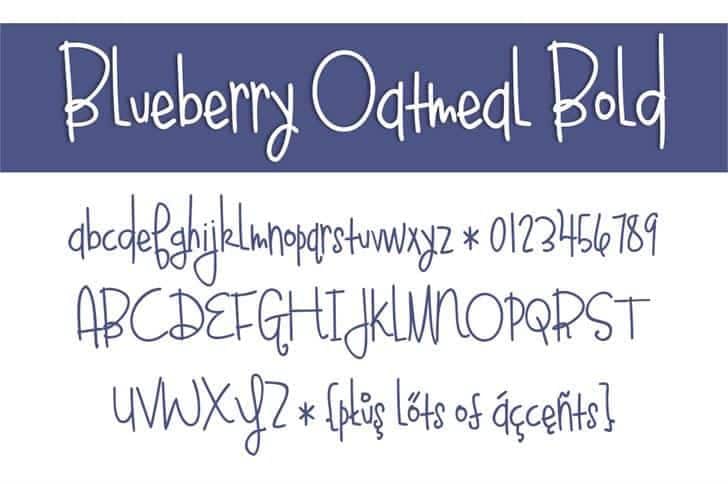
bluebery oatmeal bold
Explore the Versatility of Bluebery Oatmeal Bold Font
Bluebery Oatmeal Bold, crafted by Kevin Smith in 2022, embodies a delightful blend of modern aesthetics and bold versatility. This font is ideal for a variety of applications, including web design, branding, advertising, and product packaging. Its friendly yet confident style makes it a standout choice for creative professionals looking to make an impact.
Key Features and Availability of Bluebery Oatmeal Bold
The Inspiration Behind Bluebery Oatmeal Bold
Inspired by the warmth of handcrafted typography, Bluebery Oatmeal Bold was developed with an emphasis on creativity and legibility. Kevin Smith’s attention to detail and passion for design shine through in each character, making it an excellent choice for both print and digital media. This font carries a certain warmth that can enliven any project.
Optimal Uses for Bluebery Oatmeal Bold Font
Bluebery Oatmeal Bold excels in various contexts, including headers, logos, social media graphics, and promotional materials. Its boldness and friendliness make it perfect for brands looking to convey an approachable yet professional image, ensuring it stands out in any creative endeavor.